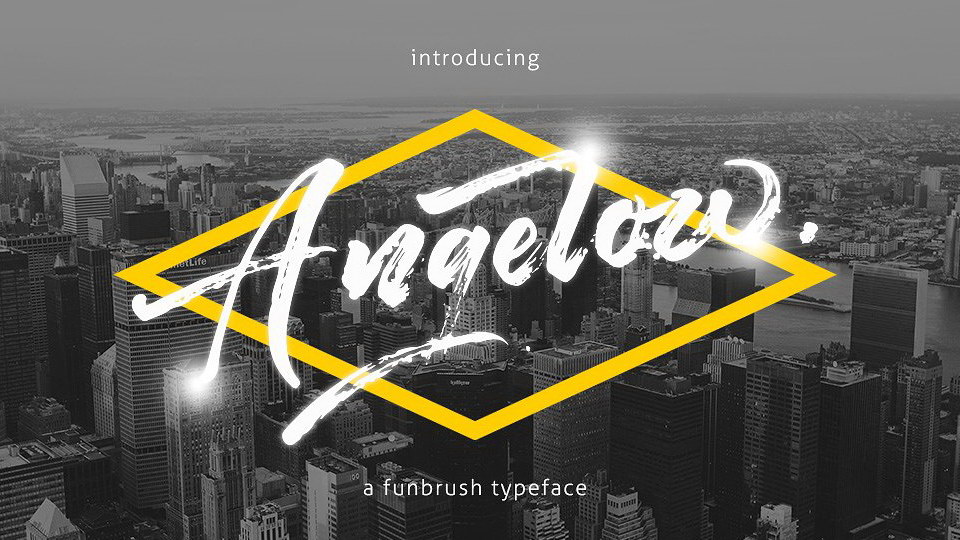
Feb 14, 2025Script & HandwrittenAngelow Script Font Angelow is a rough brush handmade script font that easily allows you to create custom lettering. Works great on clothing or in headlines. Font DetailsDesigned by: ThirtypathWebsiteLicense: Free for personal use Download Angelow Script FontFile size: 206.74 KBCreated: February 16, 2025Updated: February 16, 2025 Download Explore similar fonts Vakantcy Font Sound Seekers Font Relsika Font Machinay Font Hidden Stories Font Stone Miracle Font # Brush# Cool# Cursive# Handwriting# Rough More fonts by ThirtypathRommantis ScriptConnoisseurs ScriptBestermind FontSantun Adab FontFantastico! FontBallistic FontGoellamants FontThe Woofey Script × Analyzing and categorizing font glyphs... Please wait.